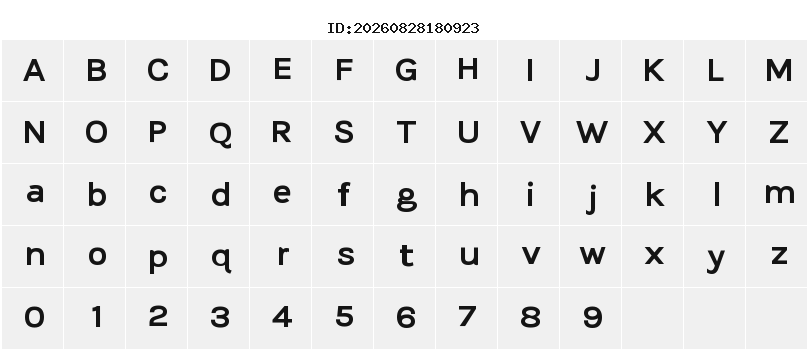
Tikus Putih Preview
• Font Name: Tikus Putih
About Tikus Putih.ttf
Tikus Putih.ttf is a modern, elegant sans-serif font designed for ultimate readability and visual harmony. Perfect for branding, headlines, web design, and print materials.